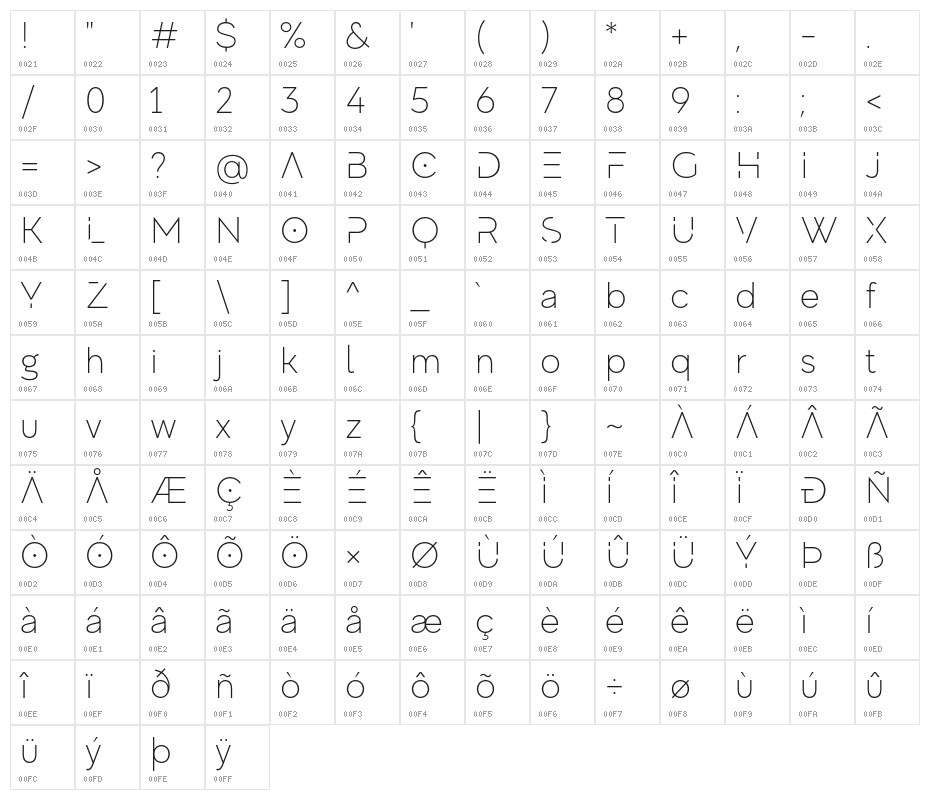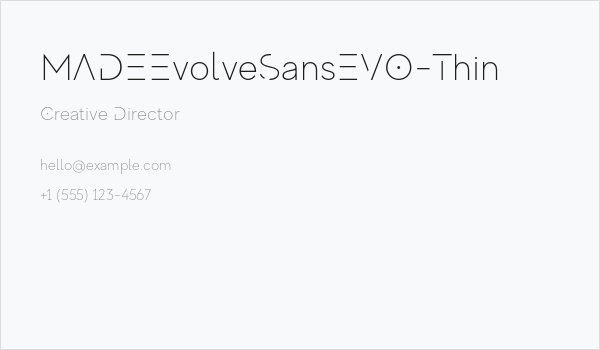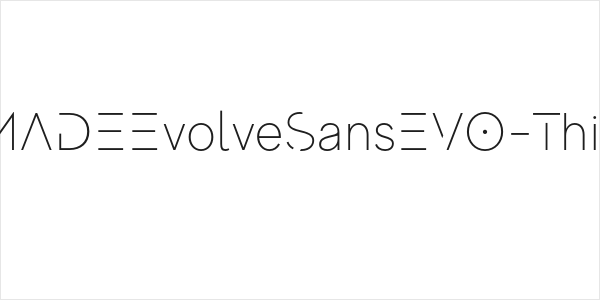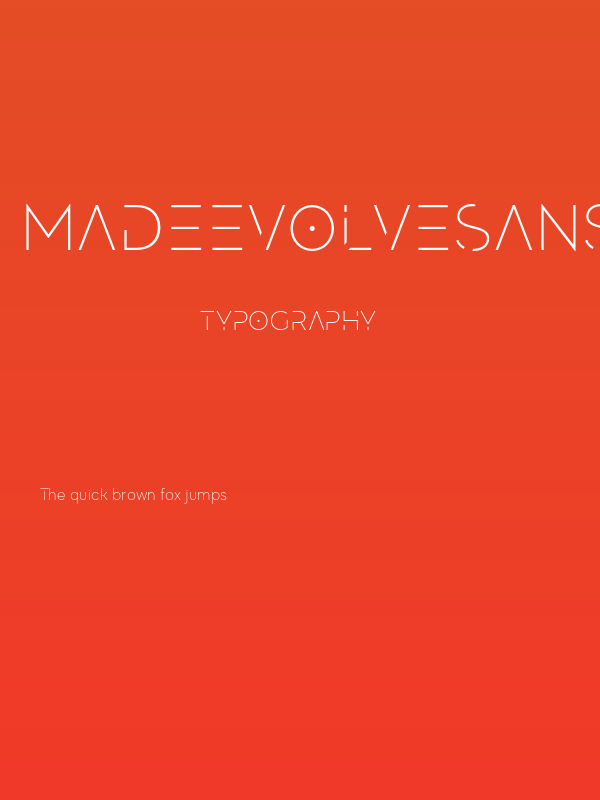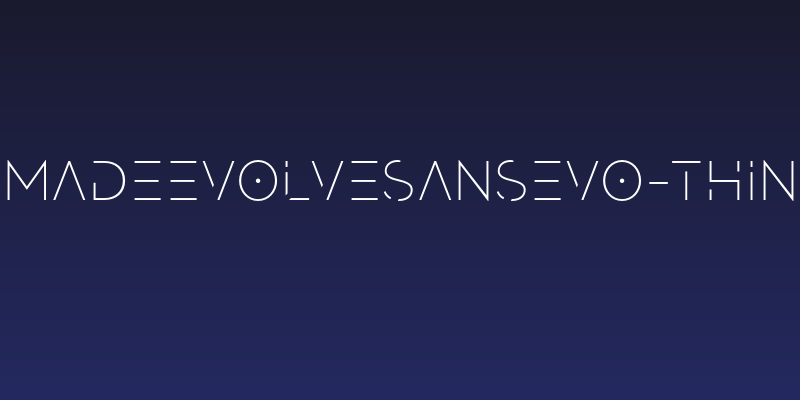
MADEEvolveSansEVO-Thin Font
MADEEvolveSansEVO-Thin Description
This font features a sleek, modern design with a minimalist aesthetic. The characters are constructed with clean, geometric lines, giving it a futuristic and sophisticated appearance. The uppercase letters are particularly distinctive, with some incorporating unique elements such as open circles and diagonal cuts. The lowercase letters maintain a consistent style, ensuring readability while retaining the font's modern edge. Numbers and special characters are designed to match the overall aesthetic, providing a cohesive look across all glyphs. This font is ideal for projects that require a contemporary and stylish touch.
| Use Case | Headlines, Logos, Digital Interfaces |
| Proposed Projects | Ideal for branding, tech-related designs, modern advertising, and digital interfaces. |